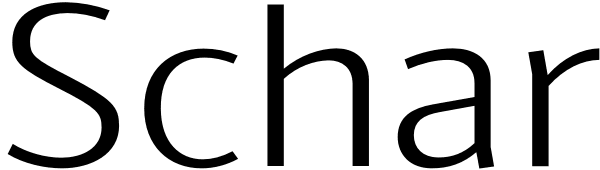
Schar
A humanist sans designed like a serif with high-stroke contrast, but without serifs. Calligraphic forms and consistent angle axis are combined to create a fluid and dynamic personality. Schar is a balanced sans serif with classic proportions ideally...